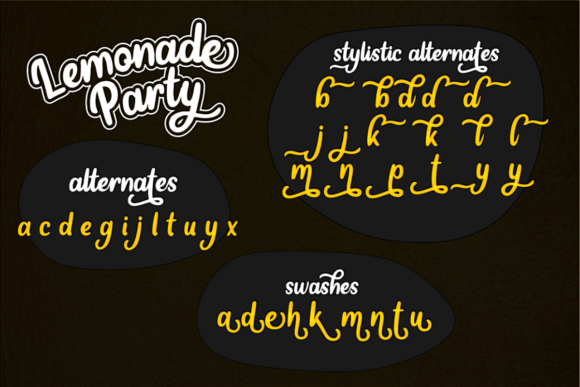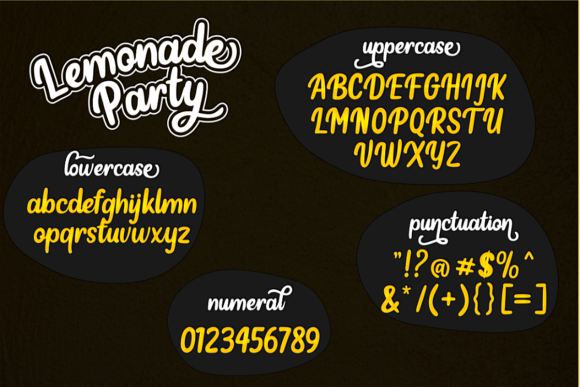
Lemonade Party Font
db-ku.com - Script & Handwritten -- Lemonade Party is a simple and tasty script font, defined by a nice flow. Not too thin and not too thick, balanced and varied, this font was designed to enhance the beauty of your projects.